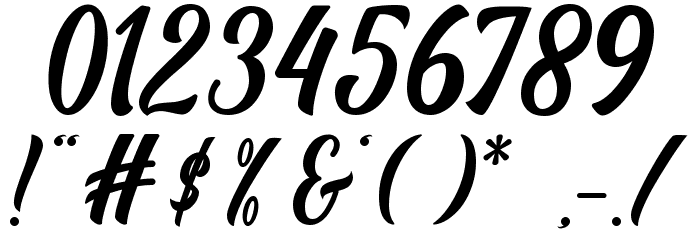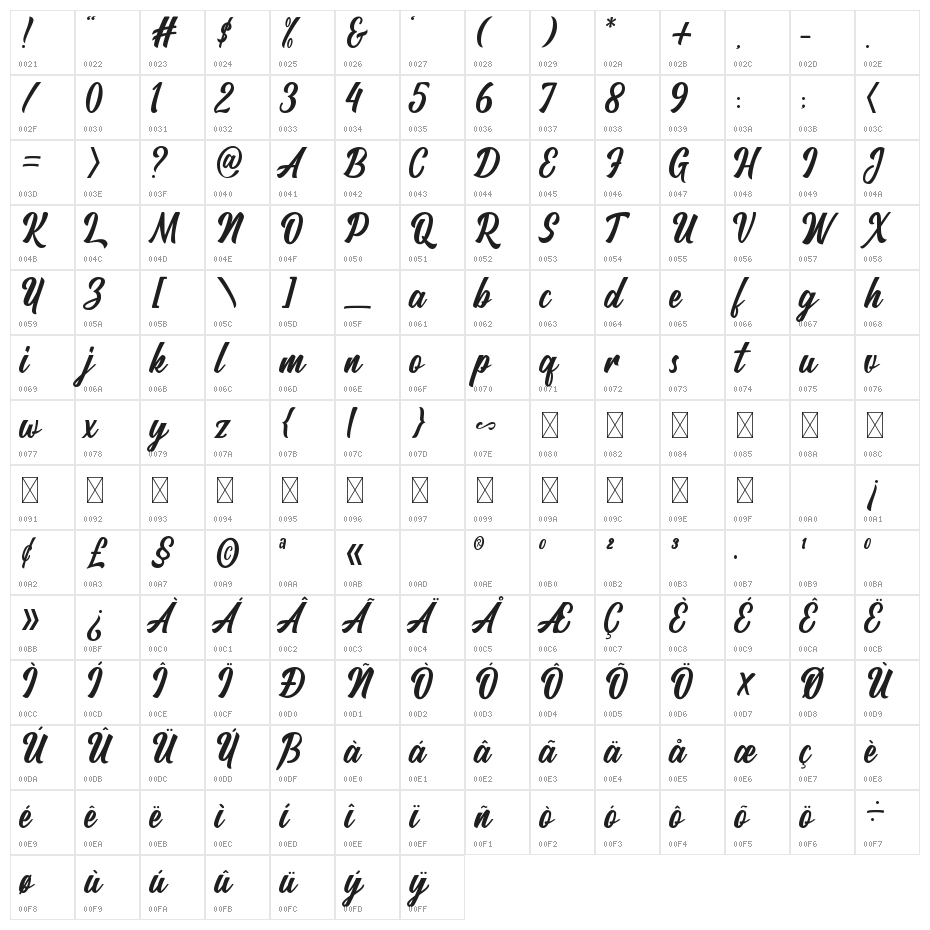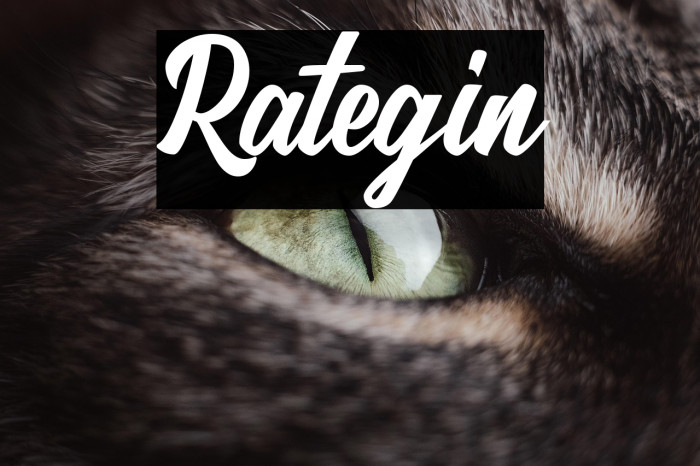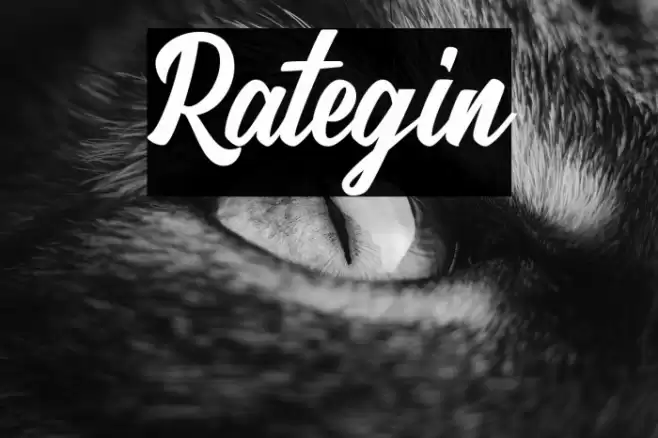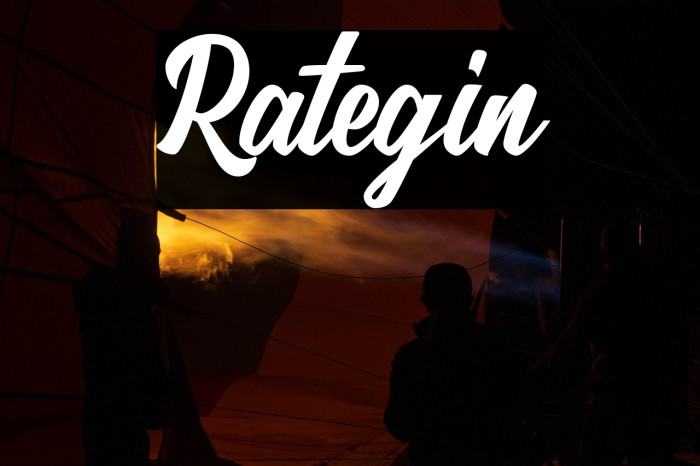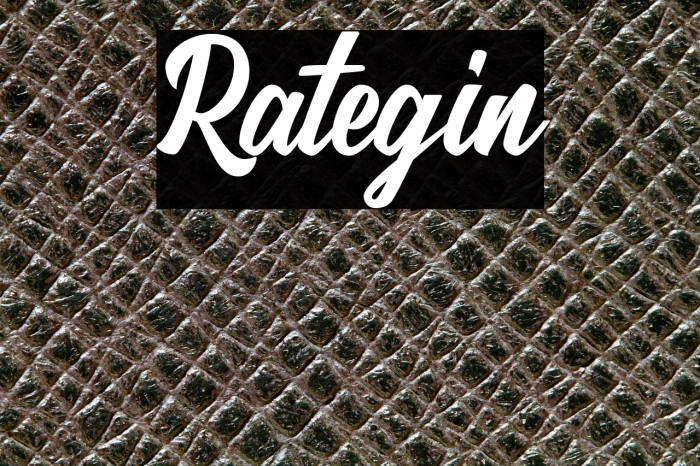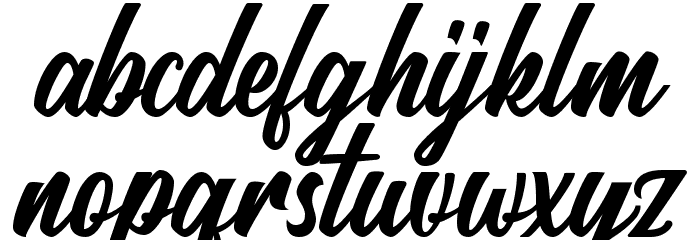
Rategin Font
Rategin Description
This font features a bold, cursive style with smooth, flowing lines that create a sense of elegance and movement. The uppercase letters are slightly more elaborate, with sweeping curves and flourishes, while the lowercase letters maintain a consistent, connected script that enhances readability. The numbers and special characters follow the same stylistic approach, ensuring a cohesive look across all elements. The overall design is both classic and dynamic, making it suitable for a variety of creative applications.
| Proposed Projects | Ideal for wedding invitations, branding, logo design, and elegant signage. |